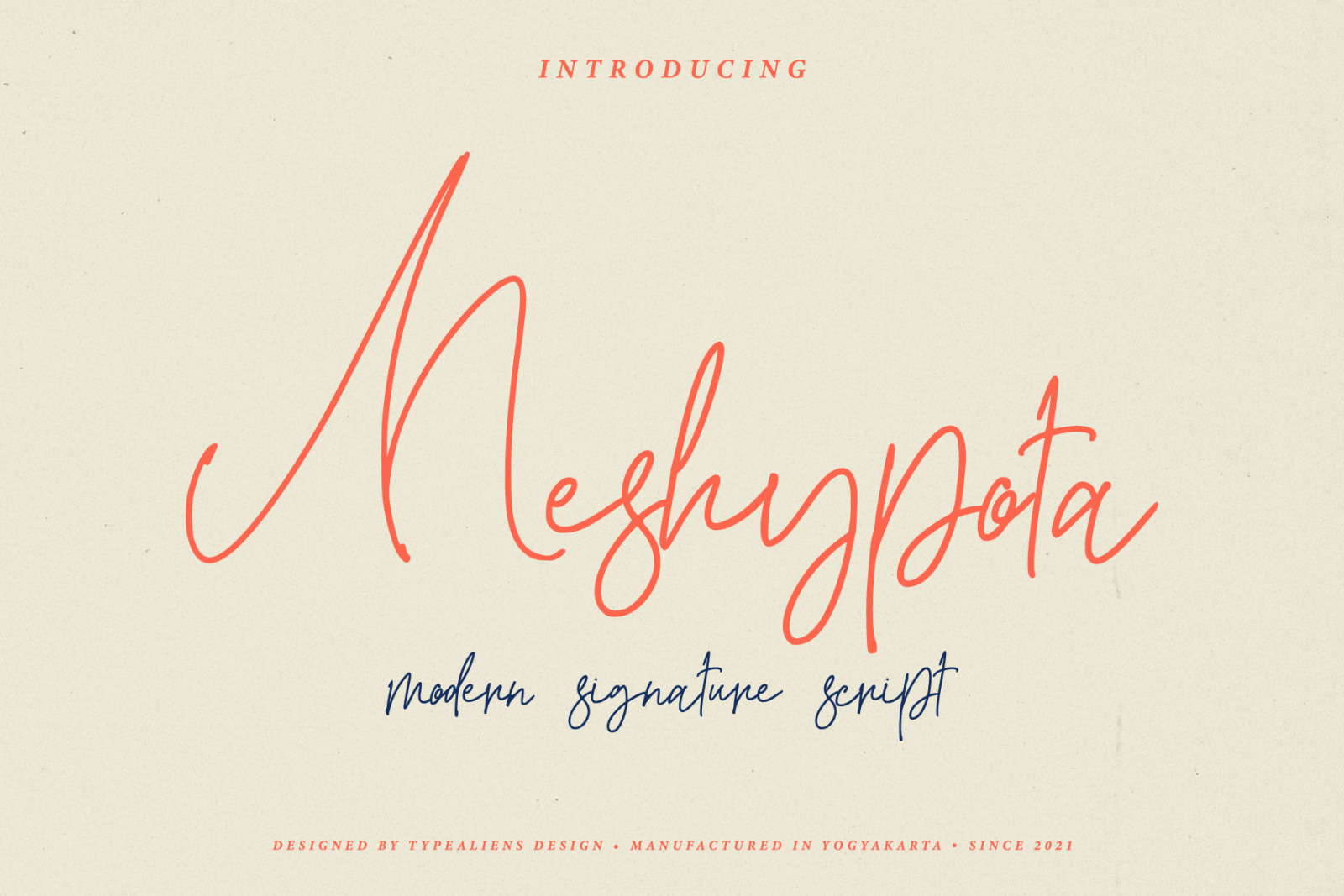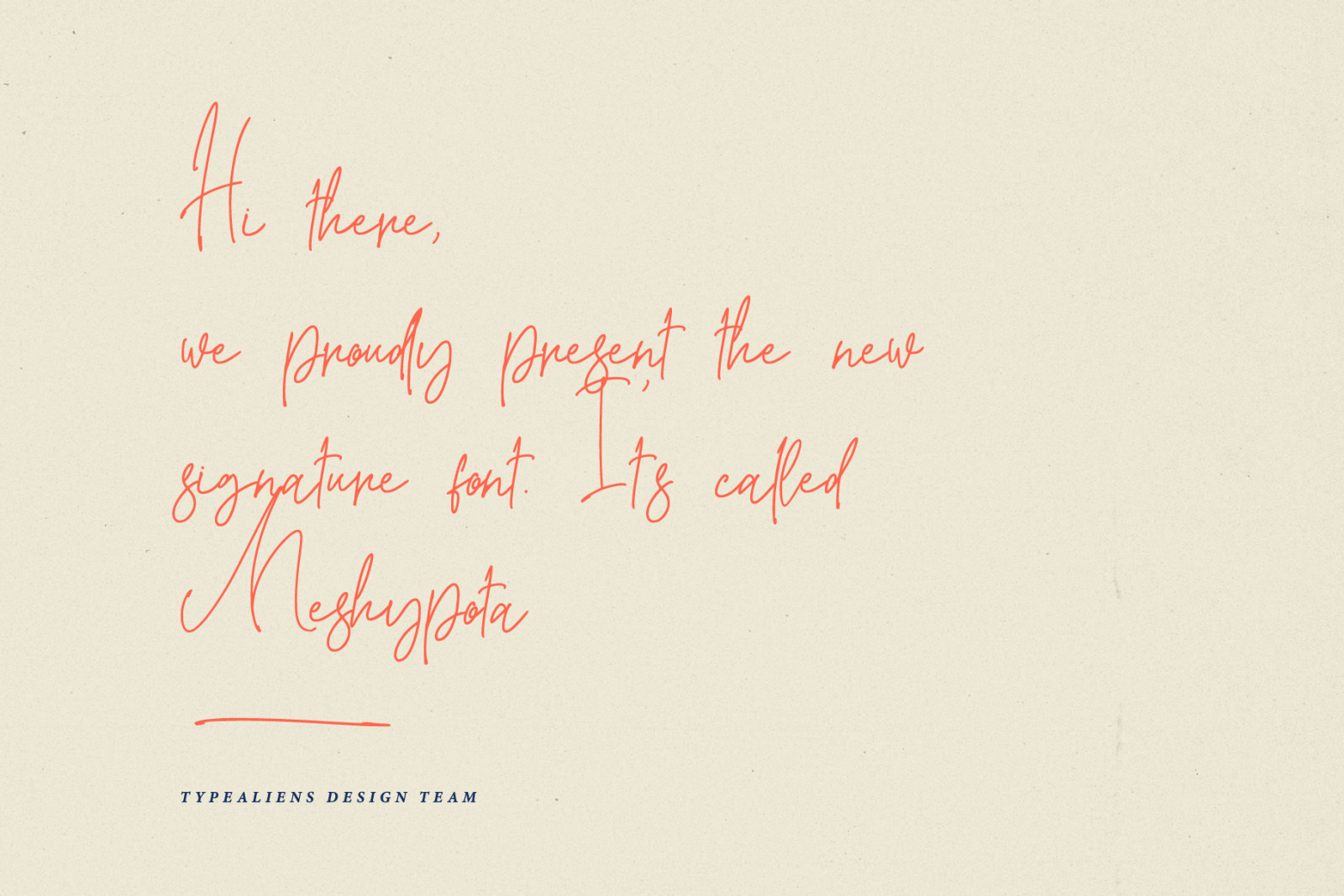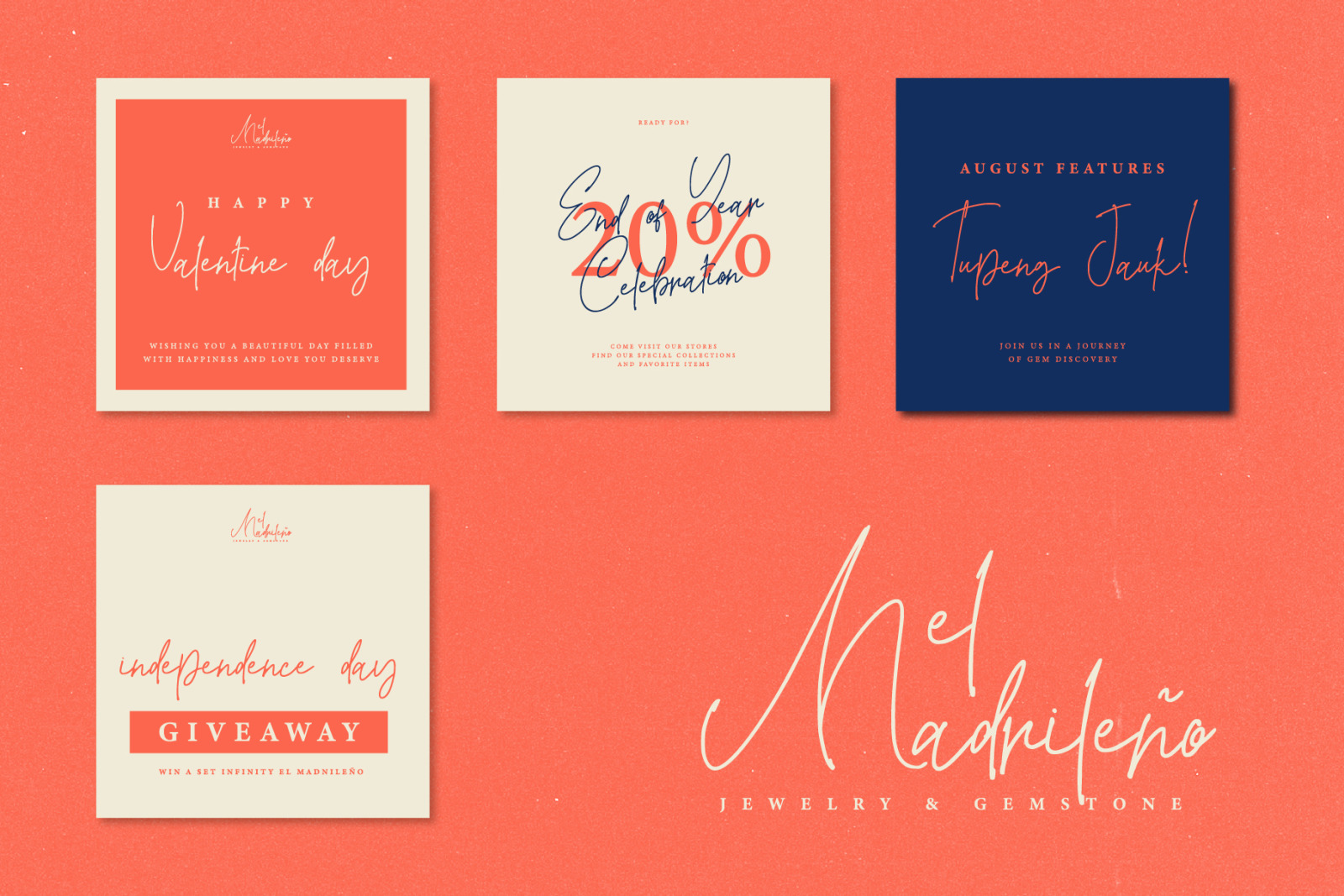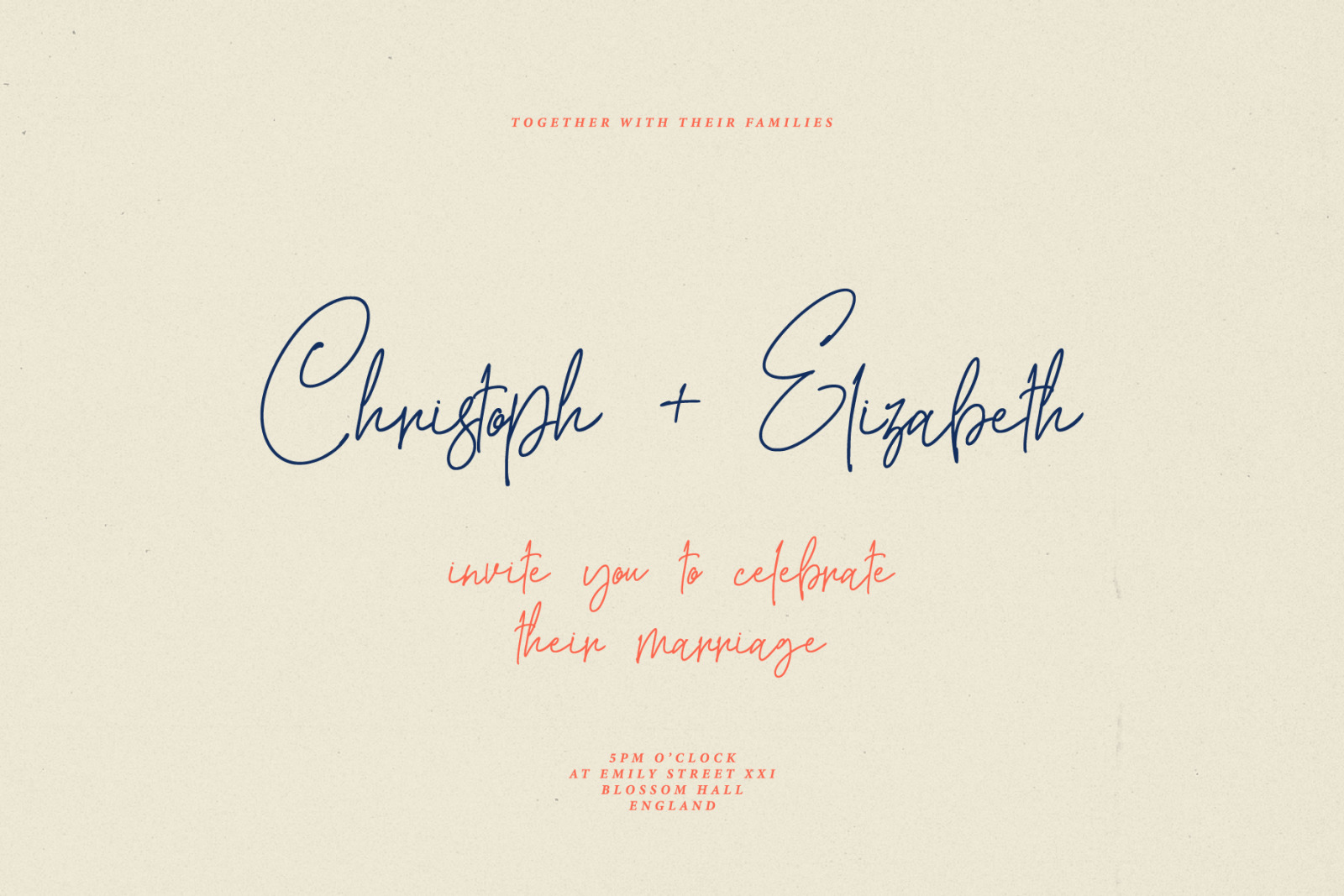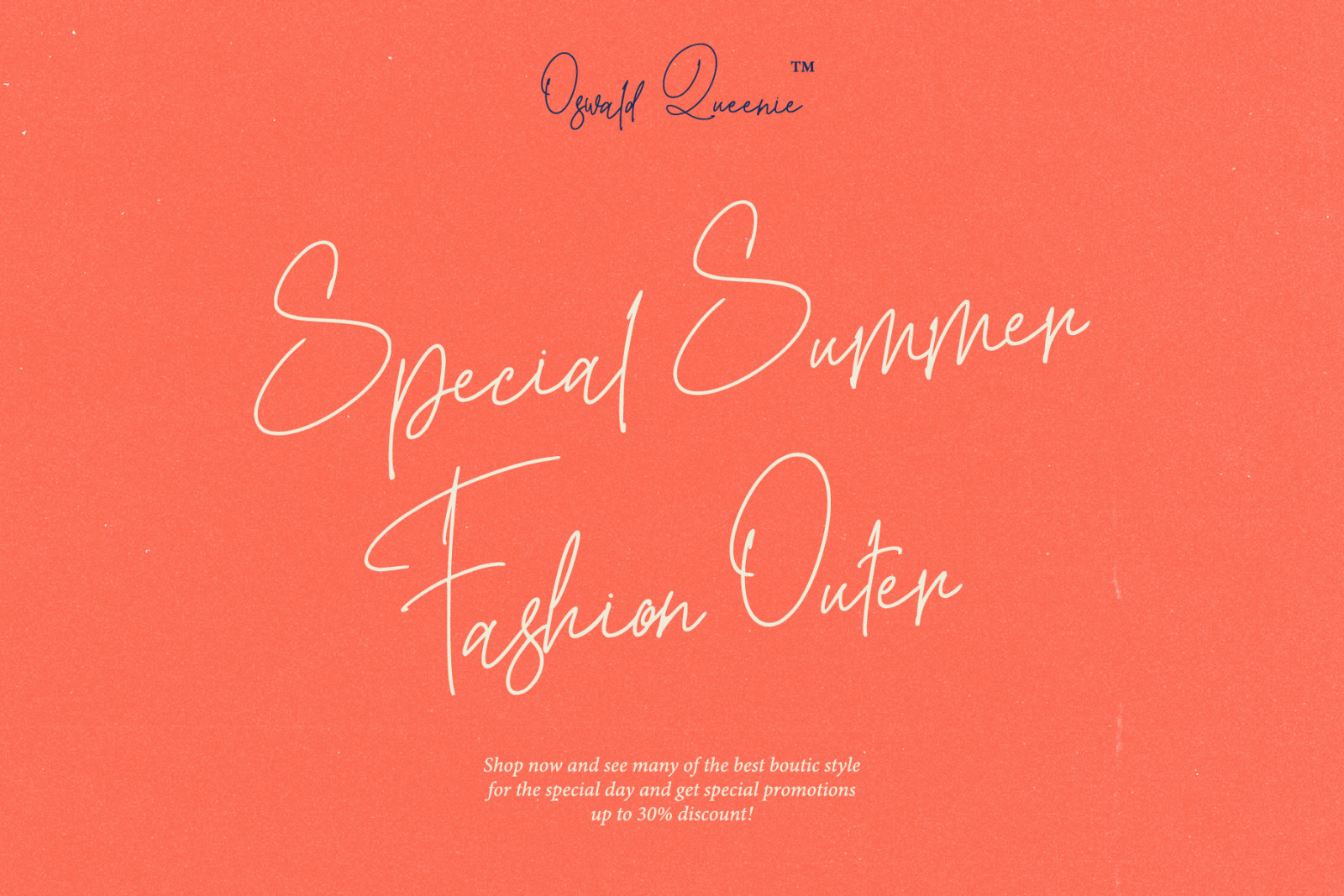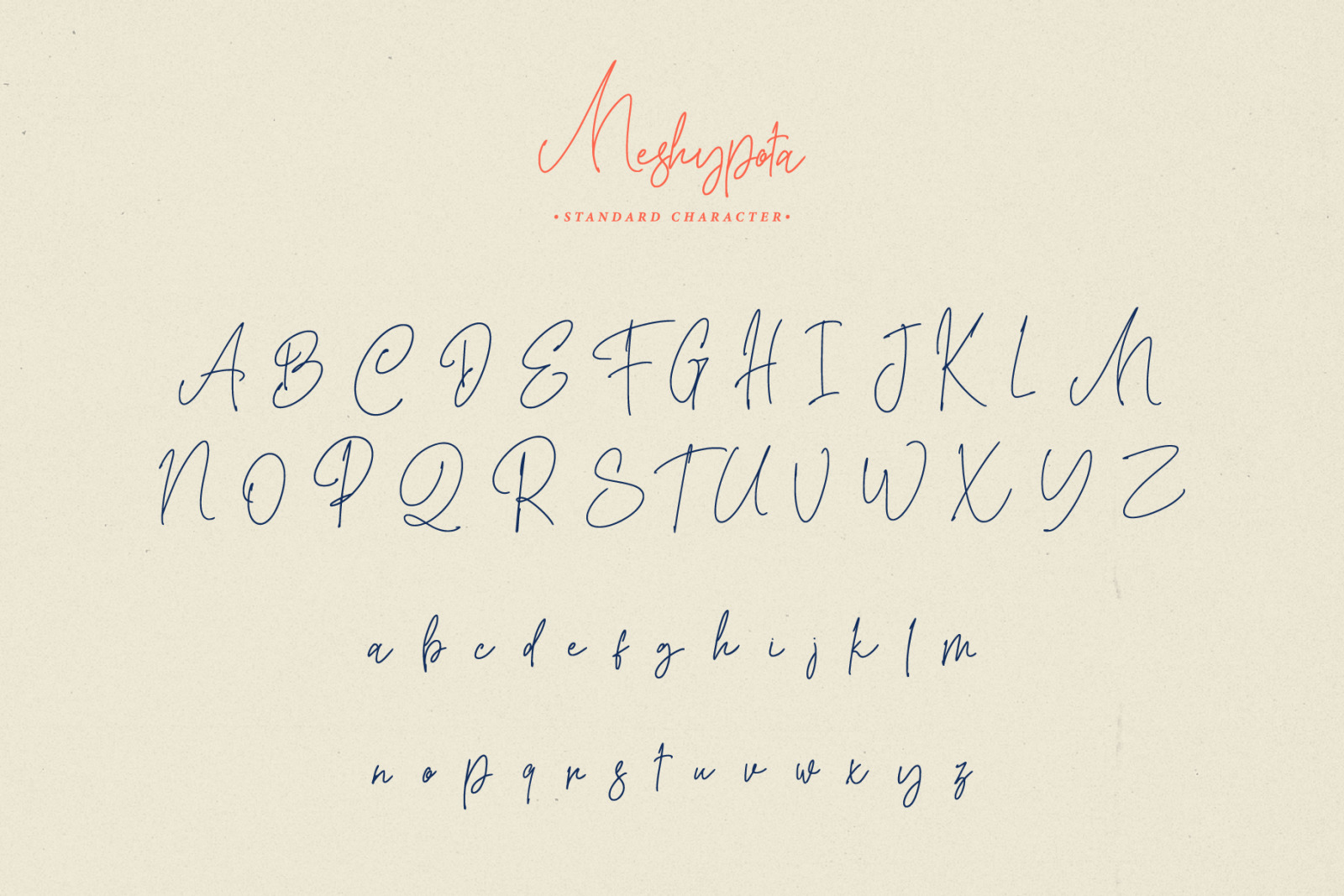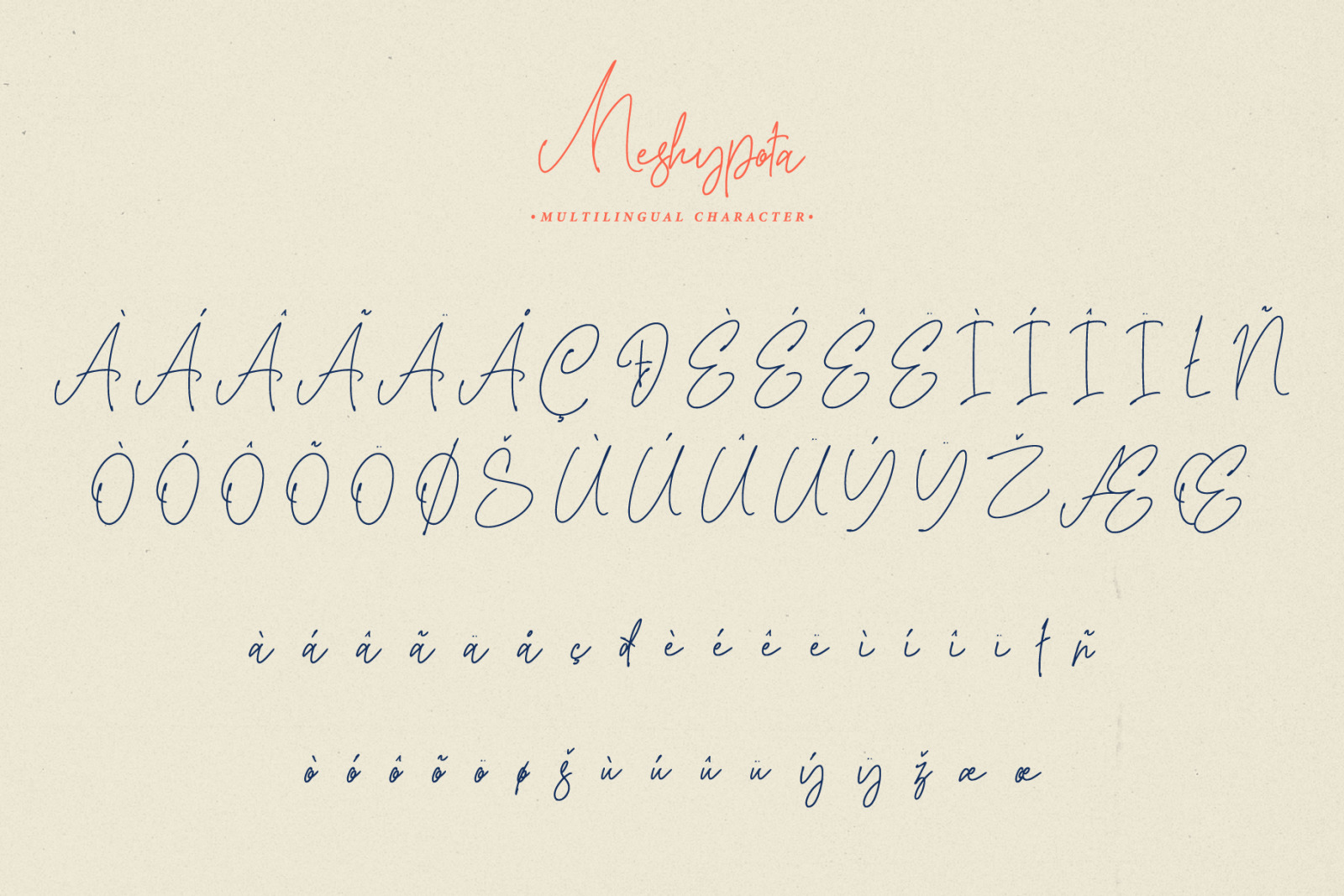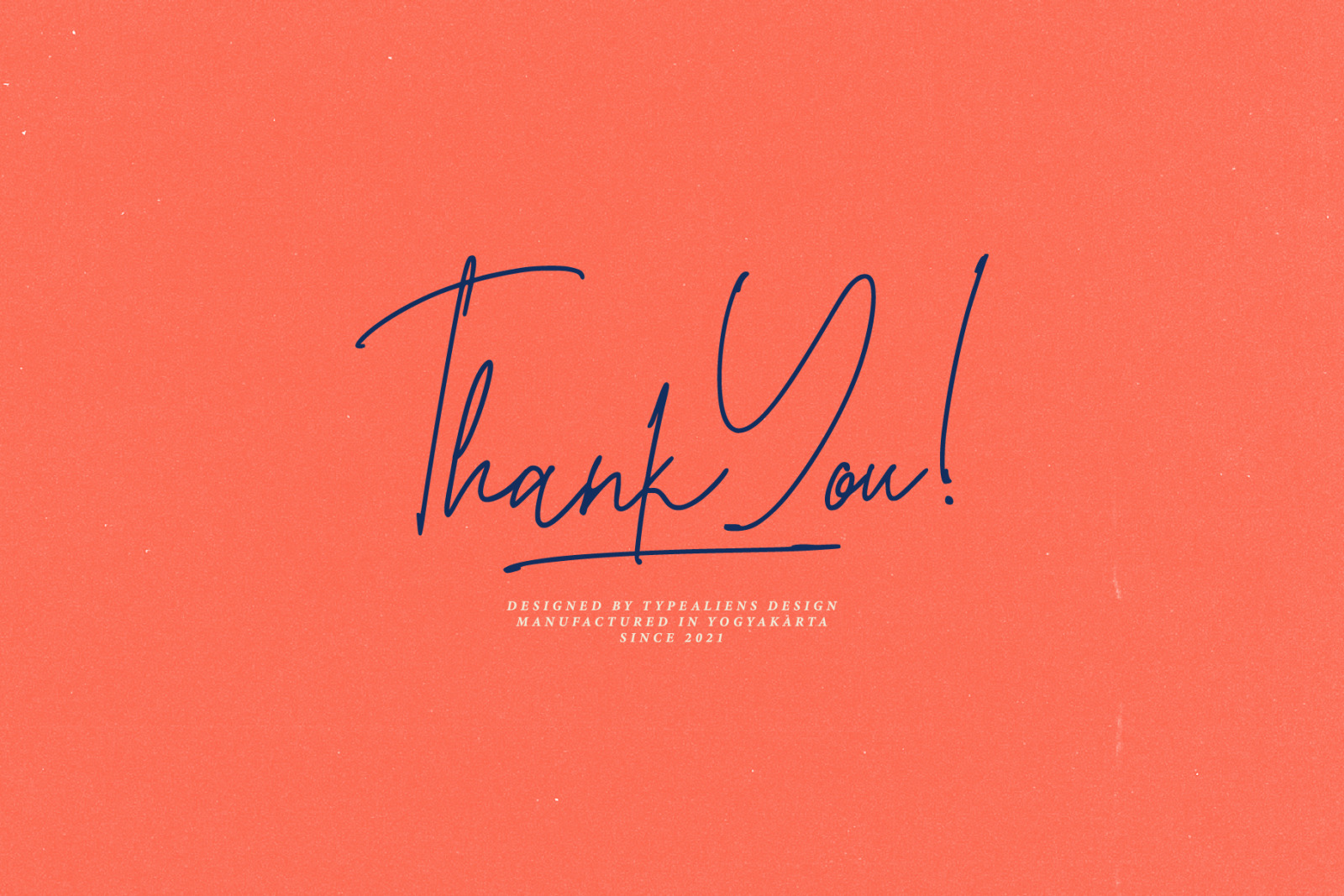
Meshypota Font
MESHYPOTA is a script type font with a signature style. Made with a sket or hand writting process. It is suitable for modern designs such as social media, names on wedding invitations, or also as headlines.